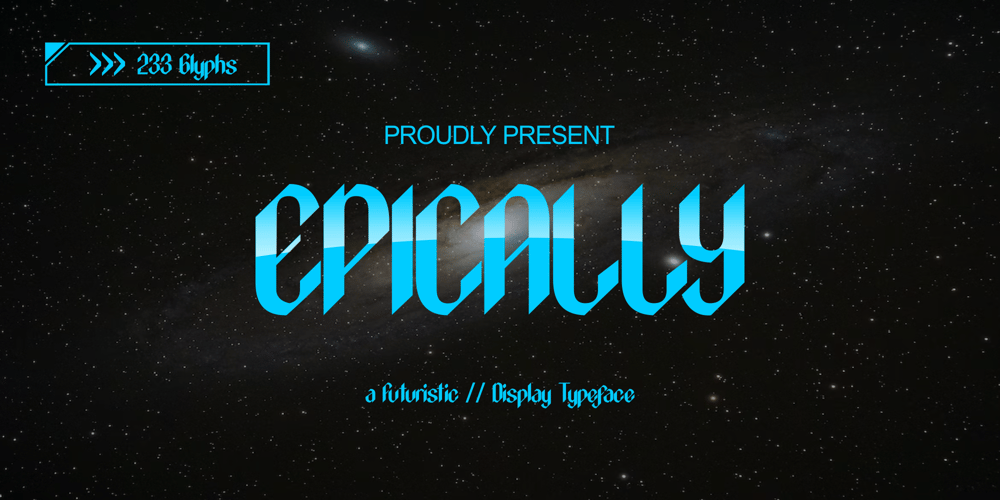
Epically Font Family was designed by Zamjump and published by Zamjump. Epically contains 1 styles and family package options. EPICALLY is a futuristic style font with a unique style and touch, inspired by the Modern theme while maintaining simplicity and unique shapes. Great to use in your projects related to games, future technology, space travel, virtual reality & more!